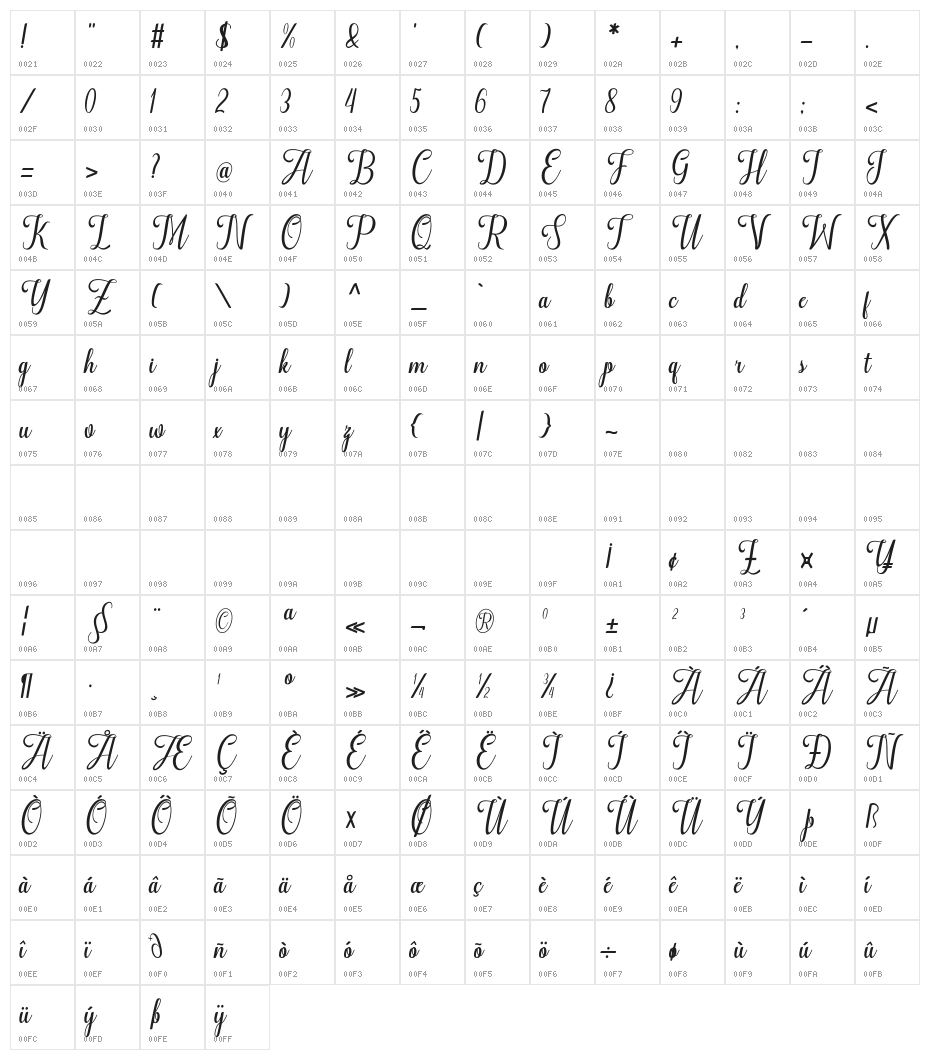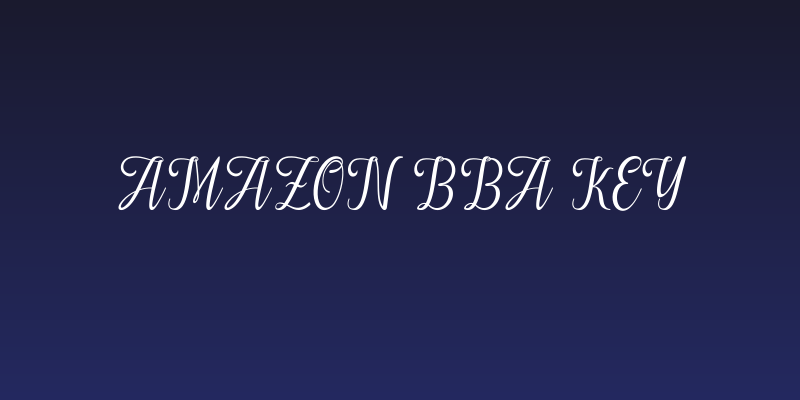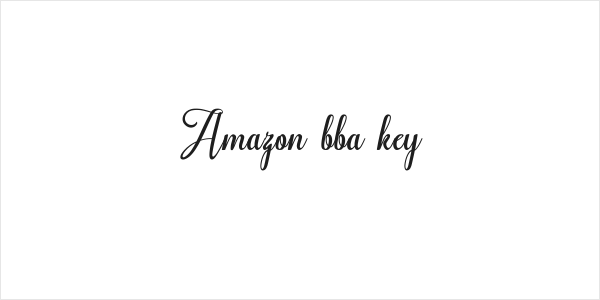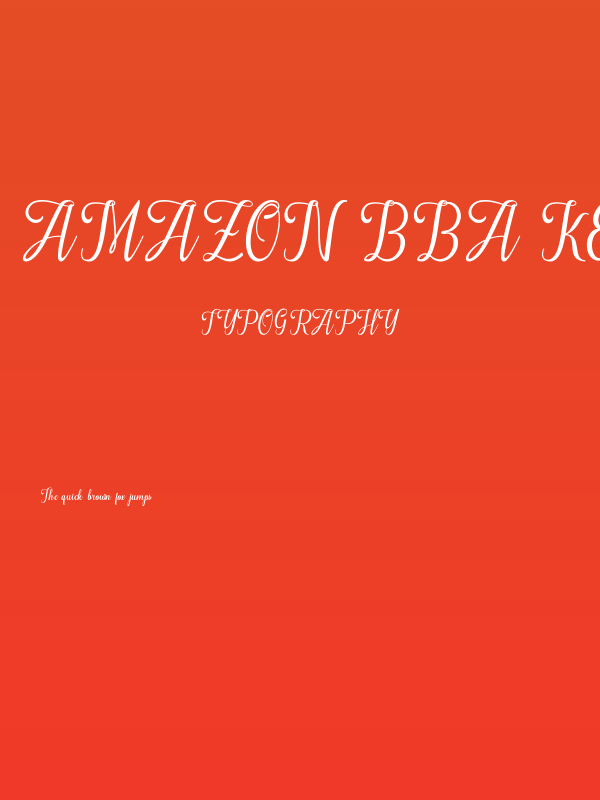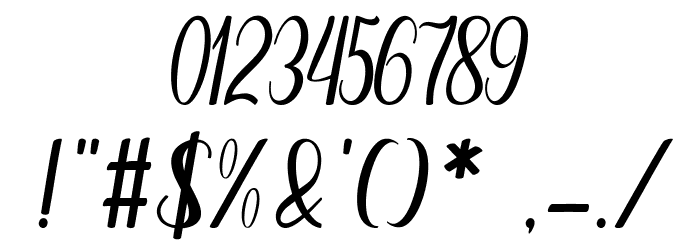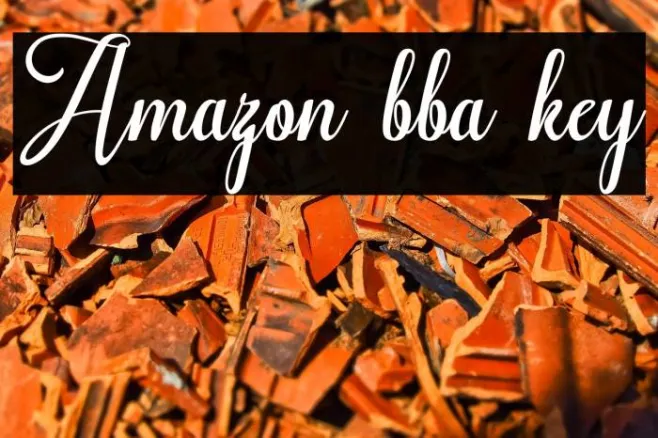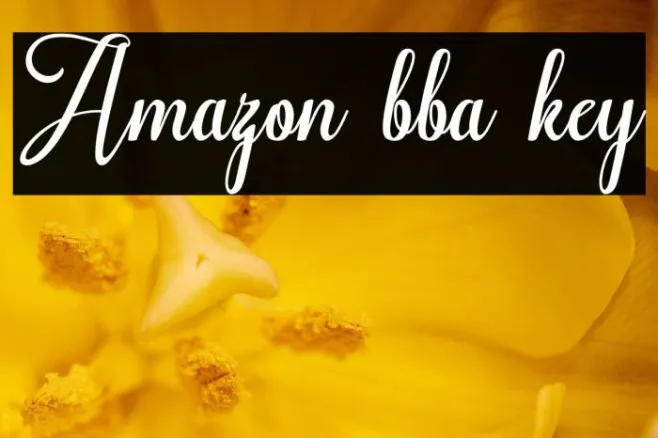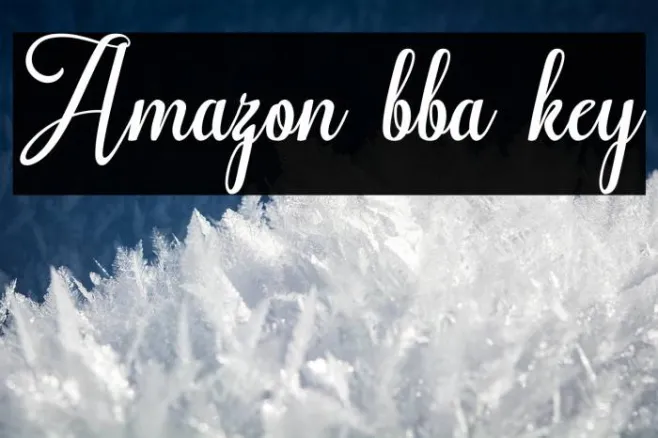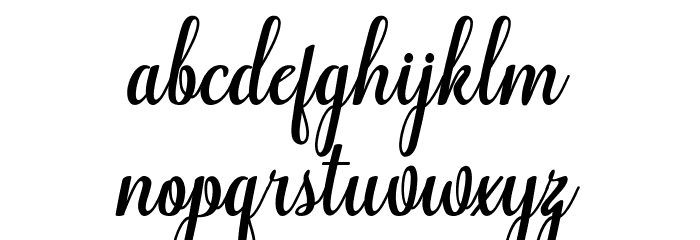
Amazon bba key Font
Amazon bba key Description
This font features an elegant and flowing script style, characterized by its smooth, cursive strokes and graceful curves. The uppercase letters exhibit a classic calligraphic flair, with elongated loops and swashes that add a touch of sophistication. The lowercase letters maintain a consistent fluidity, with a slightly more compact form that complements the uppercase. The numerals are designed with a similar script style, ensuring uniformity across the character set. Special characters are thoughtfully integrated, maintaining the overall aesthetic. The font's design is both decorative and legible, making it suitable for a variety of creative applications.
| Proposed Projects | Ideal for wedding invitations, greeting cards, branding, and elegant logo designs. |